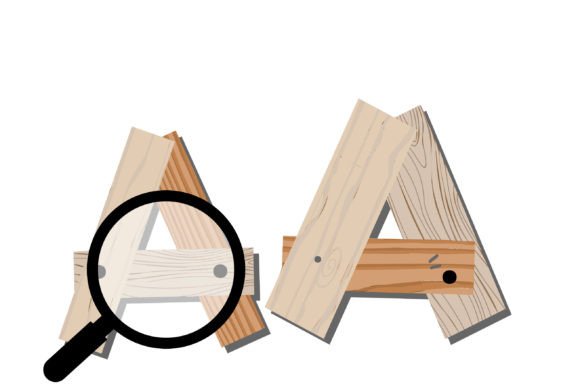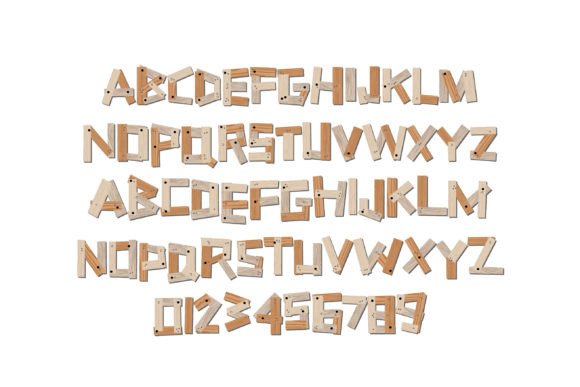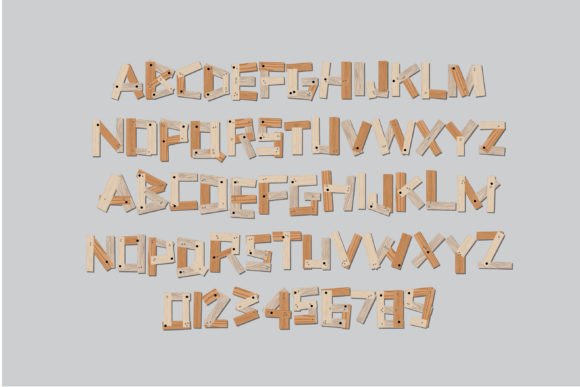
So Bored Font
About the So Bored Font
Elevate your designs with So Bored Font, a font that combines sophistication with readability. This full-color font features a creative font that looks like wood planks. This font works best for titles, displays, posters and more. Please note color fonts will show as black in non compatible programs. This font type is compatible with Silhouette Studio.